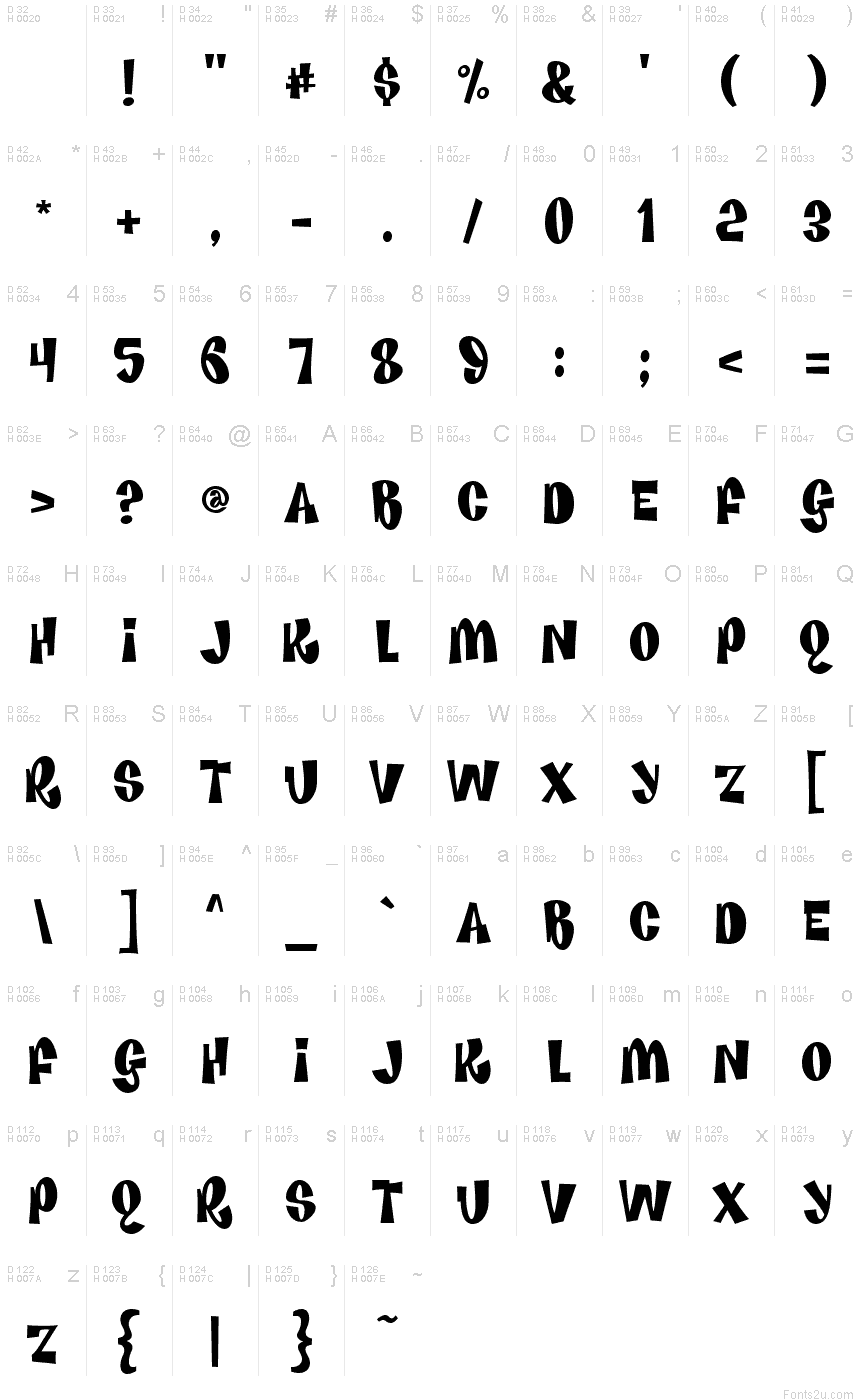
Funk House Font . Download the funkhouse (category fancy : ️ customize your own preview on ffonts.net to make sure it`s the right one for your designs. Groovy) font, perfect for creative projects. Click the download button to download. Please use the pulldown menu to view different character maps contained in this font. Thousands of designers (famous or not) use the image font detection system to find a font or similar free fonts from an image. Preview and customize it instantly to enhance your designs with a unique and professional style. The funkhouse font contains 245 beautifully designed characters. Archive of freely downloadable fonts. The font subfamily is regular. Browse by alphabetical listing, by style, by author or by popularity. View font details, character map, custom preview, downloads, file contents and more. Download funkhouse font for free for windows and mac os x. Funkhouse is the perfect font for all your fun designs.
Funk House Font Click the download button to download. Thousands of designers (famous or not) use the image font detection system to find a font or similar free fonts from an image. Funkhouse is the perfect font for all your fun designs. The funkhouse font contains 245 beautifully designed characters. Archive of freely downloadable fonts. Download funkhouse font for free for windows and mac os x. Download the funkhouse (category fancy : The font subfamily is regular. View font details, character map, custom preview, downloads, file contents and more. Browse by alphabetical listing, by style, by author or by popularity. Please use the pulldown menu to view different character maps contained in this font. Click the download button to download. ️ customize your own preview on ffonts.net to make sure it`s the right one for your designs. Groovy) font, perfect for creative projects. Preview and customize it instantly to enhance your designs with a unique and professional style.
Funkhouse Font Download For Free, View Sample Text, Rating And More Funk House Font ️ customize your own preview on ffonts.net to make sure it`s the right one for your designs. The font subfamily is regular. The funkhouse font contains 245 beautifully designed characters. Preview and customize it instantly to enhance your designs with a unique and professional style. View font details, character map, custom preview, downloads, file contents and more. Funkhouse is the. Funk House Font.
Alive Male GreenBlue Number 139 in Funkhouse Font by HorsiesFanatic on Funk House Font The funkhouse font contains 245 beautifully designed characters. Archive of freely downloadable fonts. Thousands of designers (famous or not) use the image font detection system to find a font or similar free fonts from an image. Browse by alphabetical listing, by style, by author or by popularity. Funkhouse is the perfect font for all your fun designs. Groovy) font, perfect. Funk House Font.
Bratz Font Free Download Fonts Bee Funk House Font ️ customize your own preview on ffonts.net to make sure it`s the right one for your designs. Archive of freely downloadable fonts. Click the download button to download. The funkhouse font contains 245 beautifully designed characters. Groovy) font, perfect for creative projects. Funkhouse is the perfect font for all your fun designs. Thousands of designers (famous or not) use the. Funk House Font.
© joyiuvie ♡ fonts iconone, funkhouse, outfit in 2024 Diy gifts Funk House Font Groovy) font, perfect for creative projects. Browse by alphabetical listing, by style, by author or by popularity. Preview and customize it instantly to enhance your designs with a unique and professional style. The font subfamily is regular. The funkhouse font contains 245 beautifully designed characters. View font details, character map, custom preview, downloads, file contents and more. ️ customize your. Funk House Font.